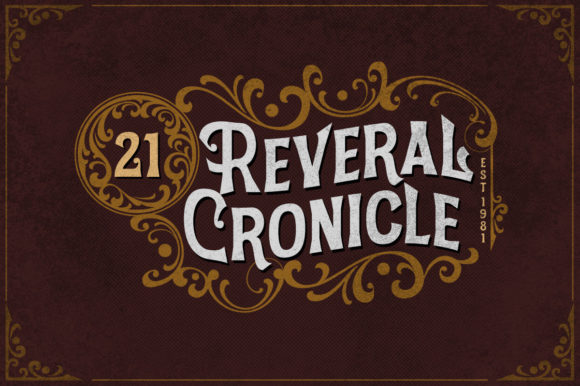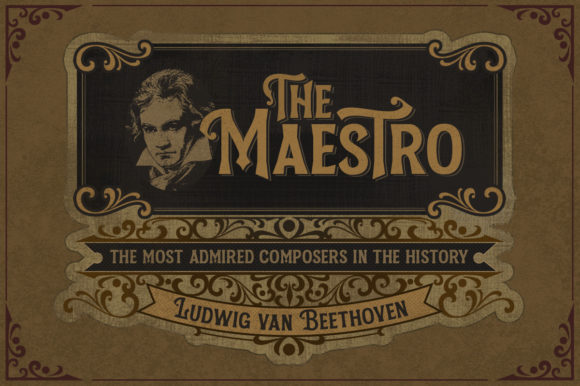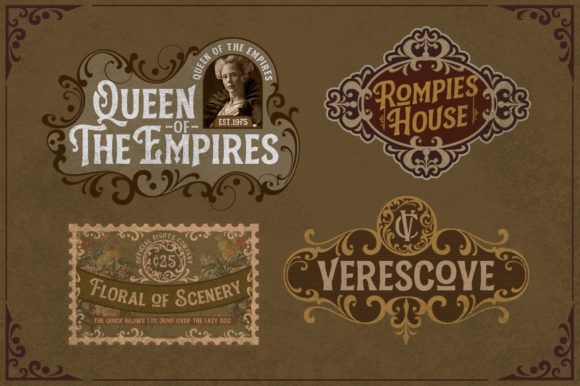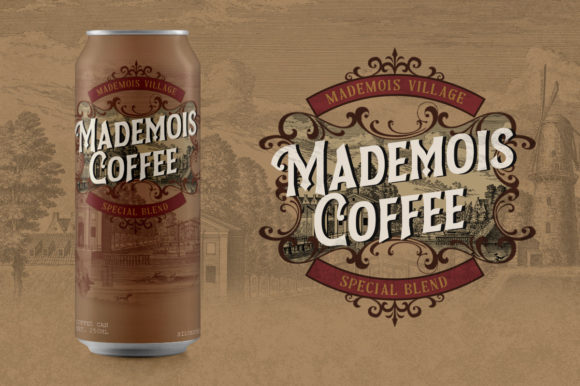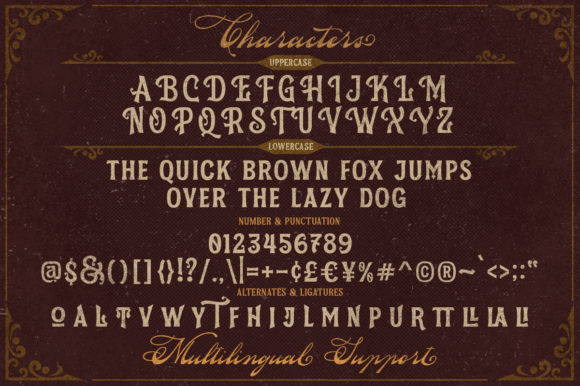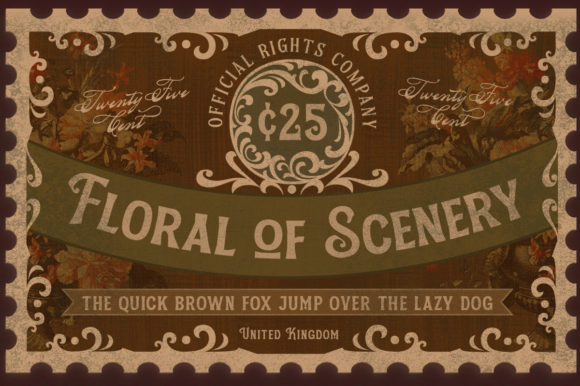
Introduction to Silvestern Font Font
Fonts play a crucial role in design, and the Silvestern Font font is a typeface that brings both character and versatility to any project. Whether you’re working on a branding project, a website, or a print design, the Silvestern Font font offers a unique style that can elevate your work.
Silvestern is a cool, bold and vintage styled display font.
Add this assertive font to your favorite designs and notice how they instantly come to life .
Key Features of Silvestern Font Font
Why Choose Silvestern Font Font?
The Silvestern Font font is more than just a typeface – it’s a design tool that helps you communicate your message with style and clarity. Its unique character set and versatile design make it suitable for a wide range of applications, from elegant invitations to bold headlines.
With its carefully crafted letterforms and balanced proportions, the Silvestern Font font ensures readability and visual appeal across all mediums.
What makes Silvestern Font font special?
The Silvestern Font font stands out with its unique design, exceptional readability, and versatility across various design applications.